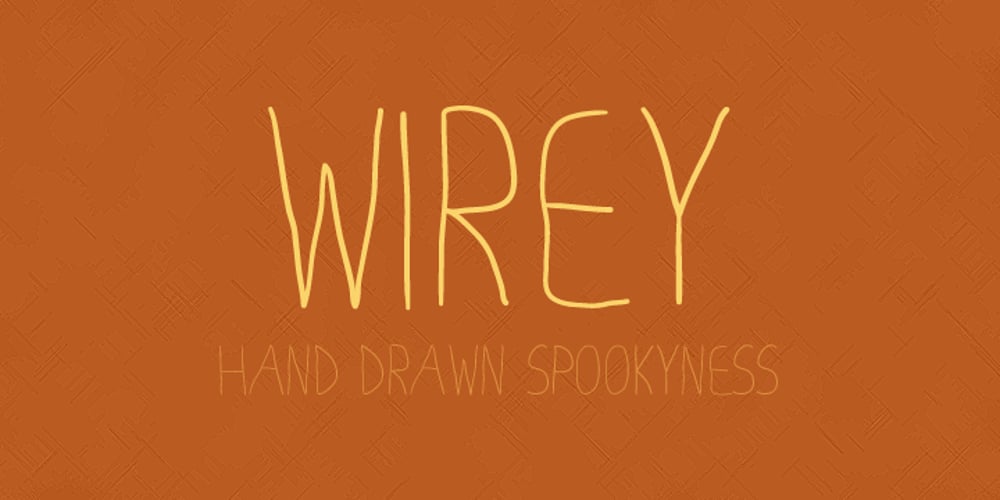
Wirey Font Family was designed by Josh Conley and published by Joshua Conley. Wirey contains 1 styles and family package options. Wirey is an uppercase hand drawn font inspired by bent copper wires. It is designed for headers, titles and posters where fonts need to be big and unique. Wirey is styled in a way that looks hand drawn but also keeps a simple, professional element within it.